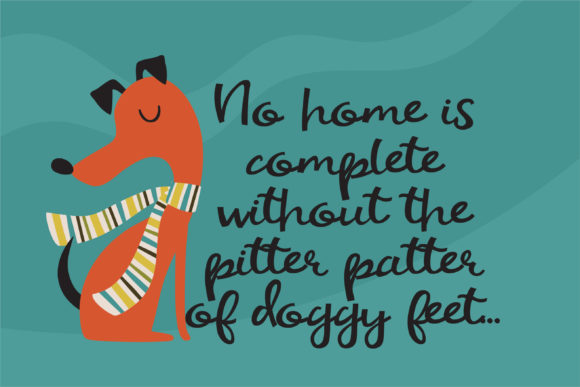
Introduction to Schatzie Font Font
Fonts play a crucial role in design, and the Schatzie Font font is a typeface that brings both character and versatility to any project. Whether you’re working on a branding project, a website, or a print design, the Schatzie Font font offers a unique style that can elevate your work.
This hand-crafted script has a casual feel to it.
Itβs great to add a home-made touch to projects .
Key Features of Schatzie Font Font
Why Choose Schatzie Font Font?
The Schatzie Font font is more than just a typeface β it’s a design tool that helps you communicate your message with style and clarity. Its unique character set and versatile design make it suitable for a wide range of applications, from elegant invitations to bold headlines.
With its carefully crafted letterforms and balanced proportions, the Schatzie Font font ensures readability and visual appeal across all mediums.
What makes Schatzie Font font special?
The Schatzie Font font stands out with its unique design, exceptional readability, and versatility across various design applications.